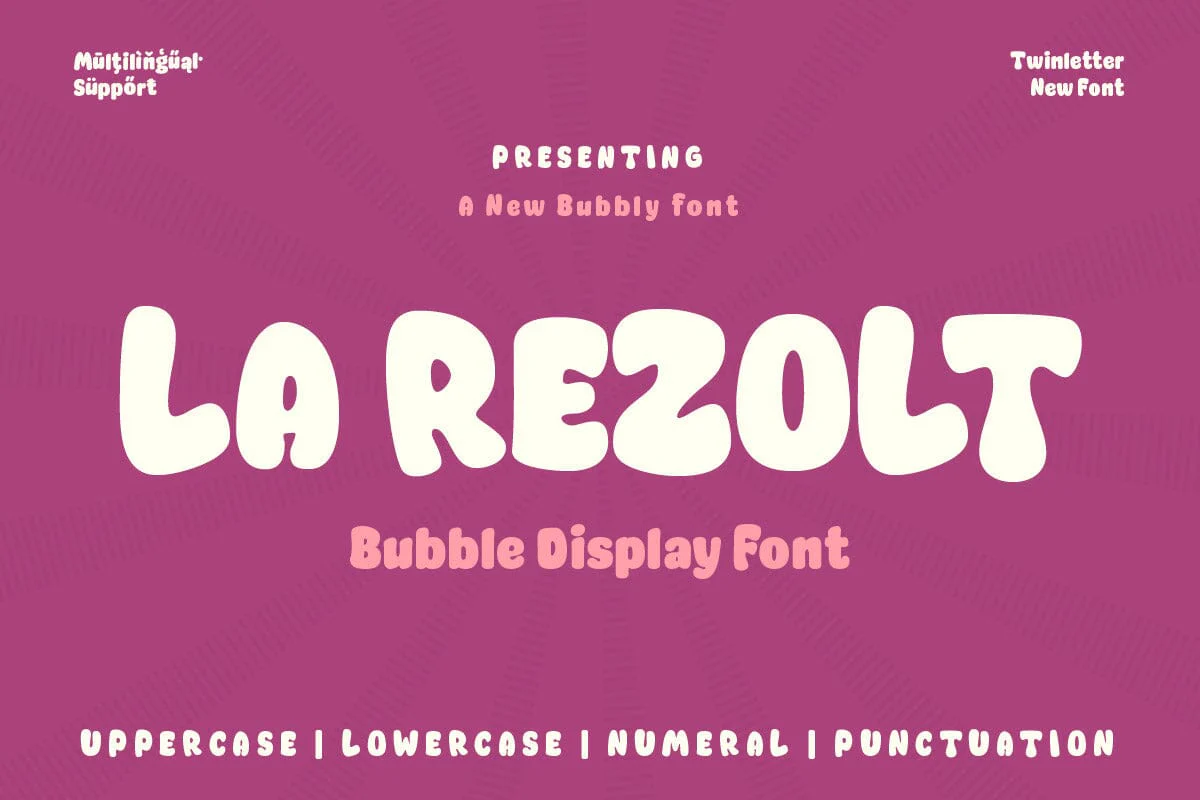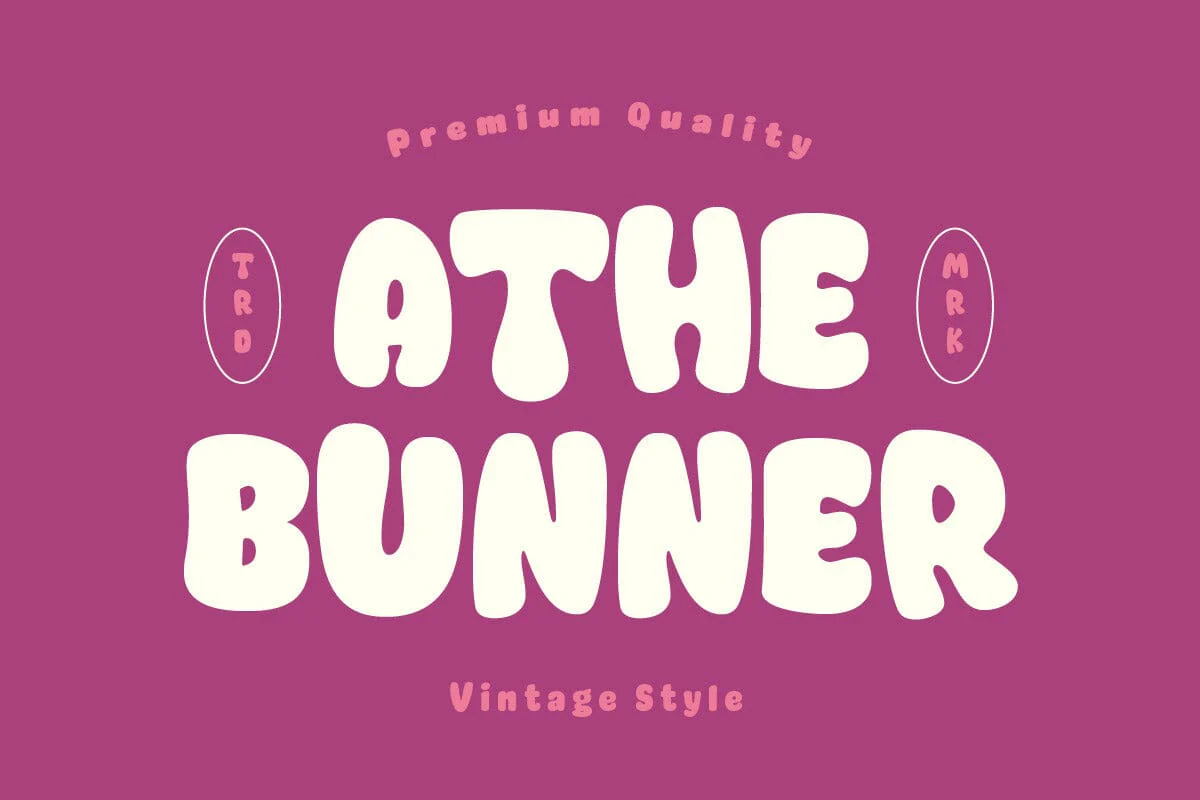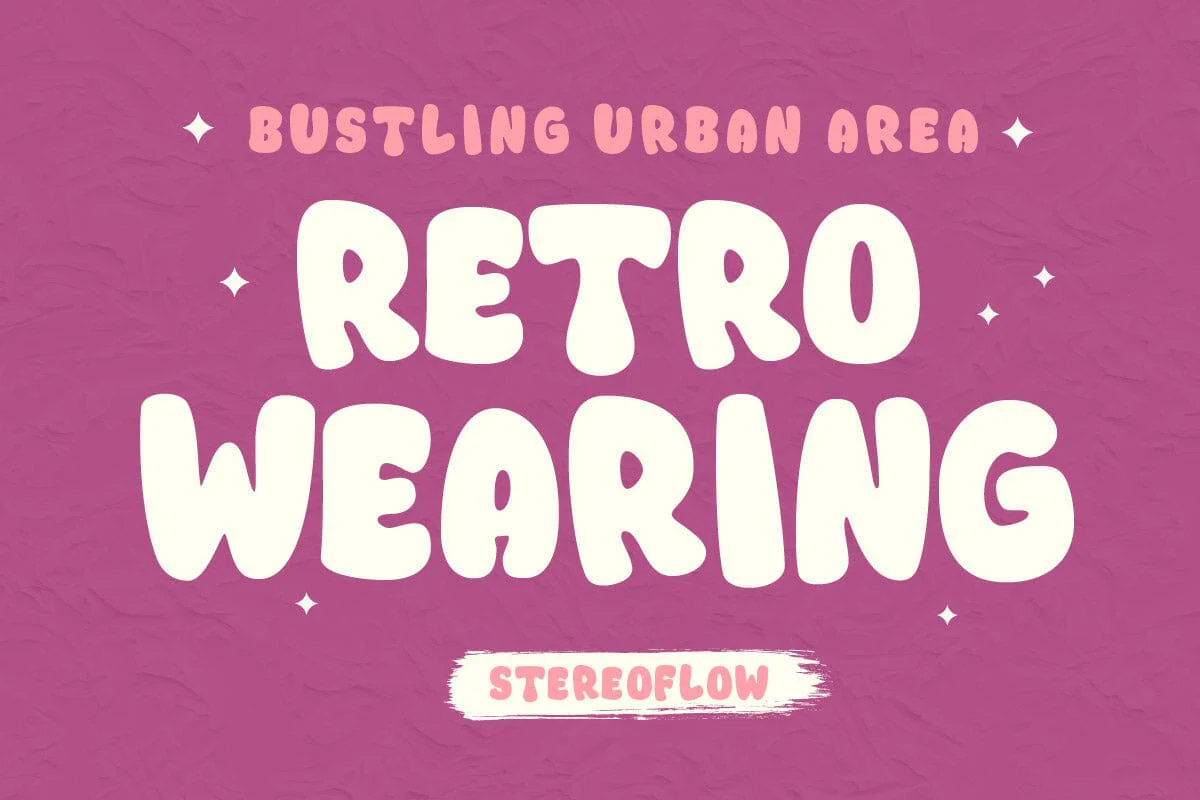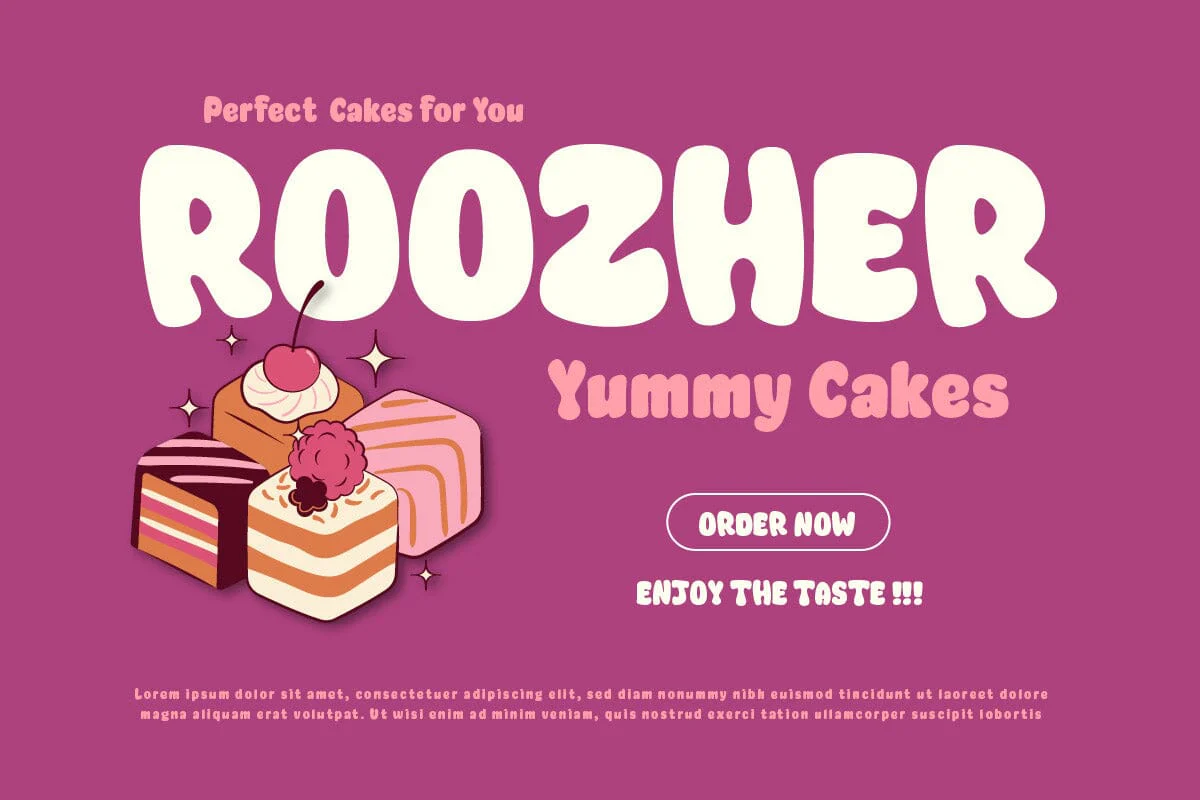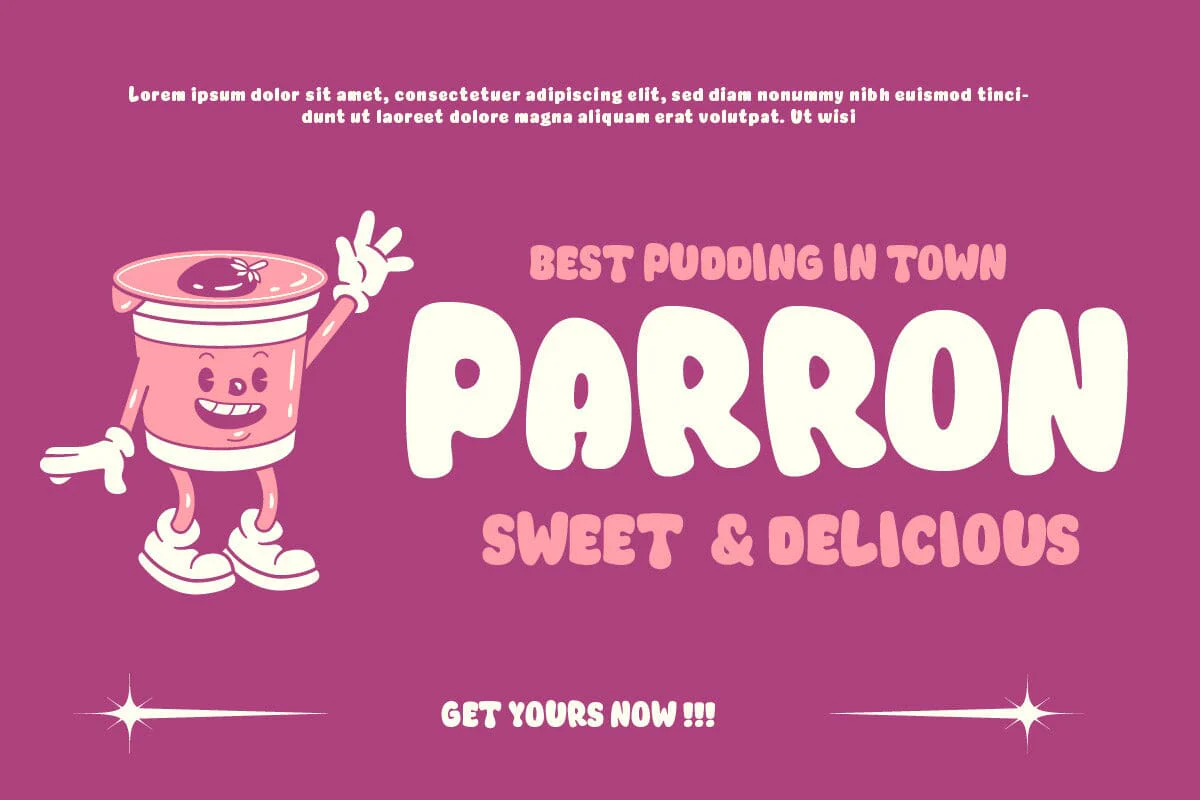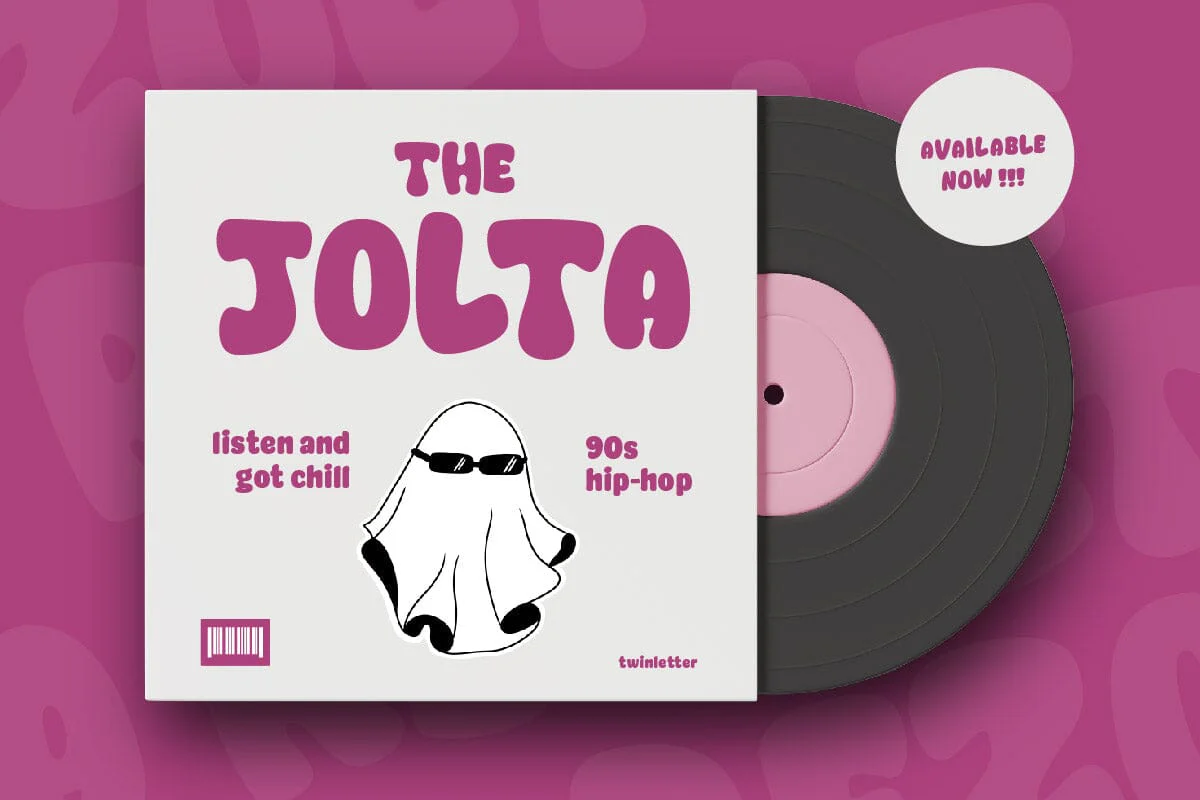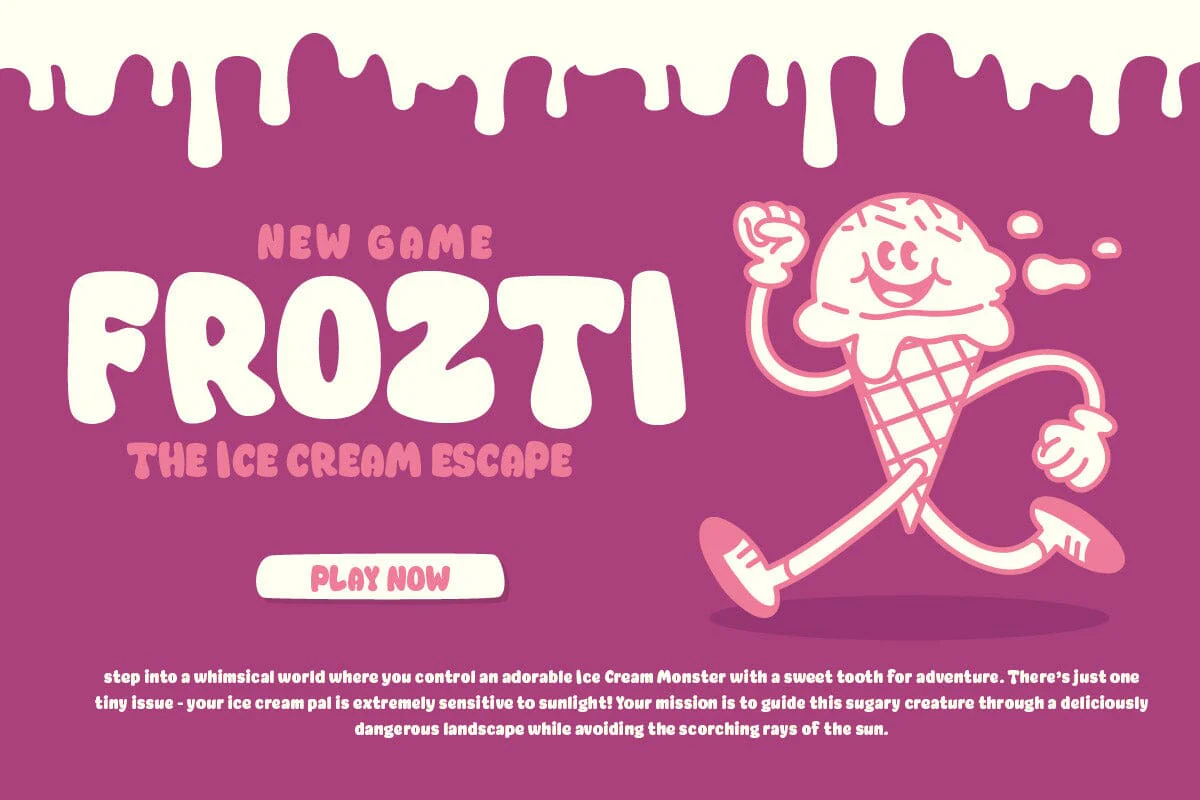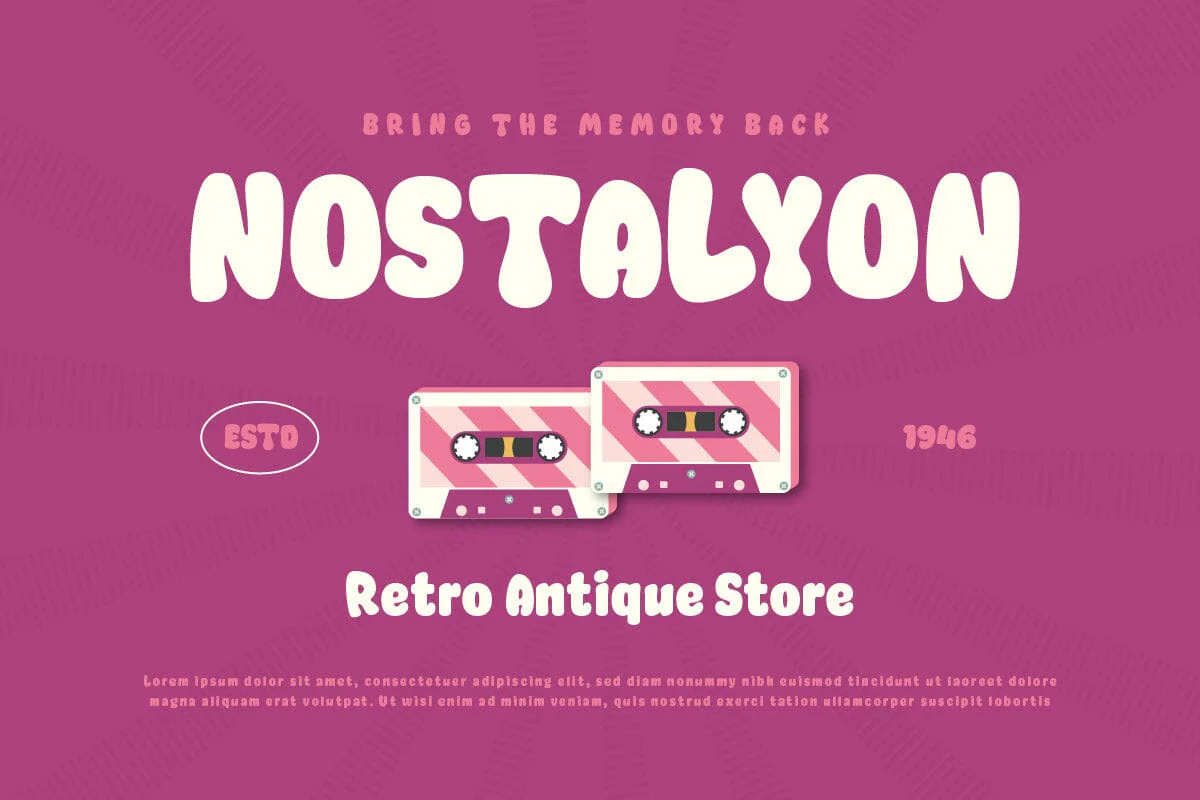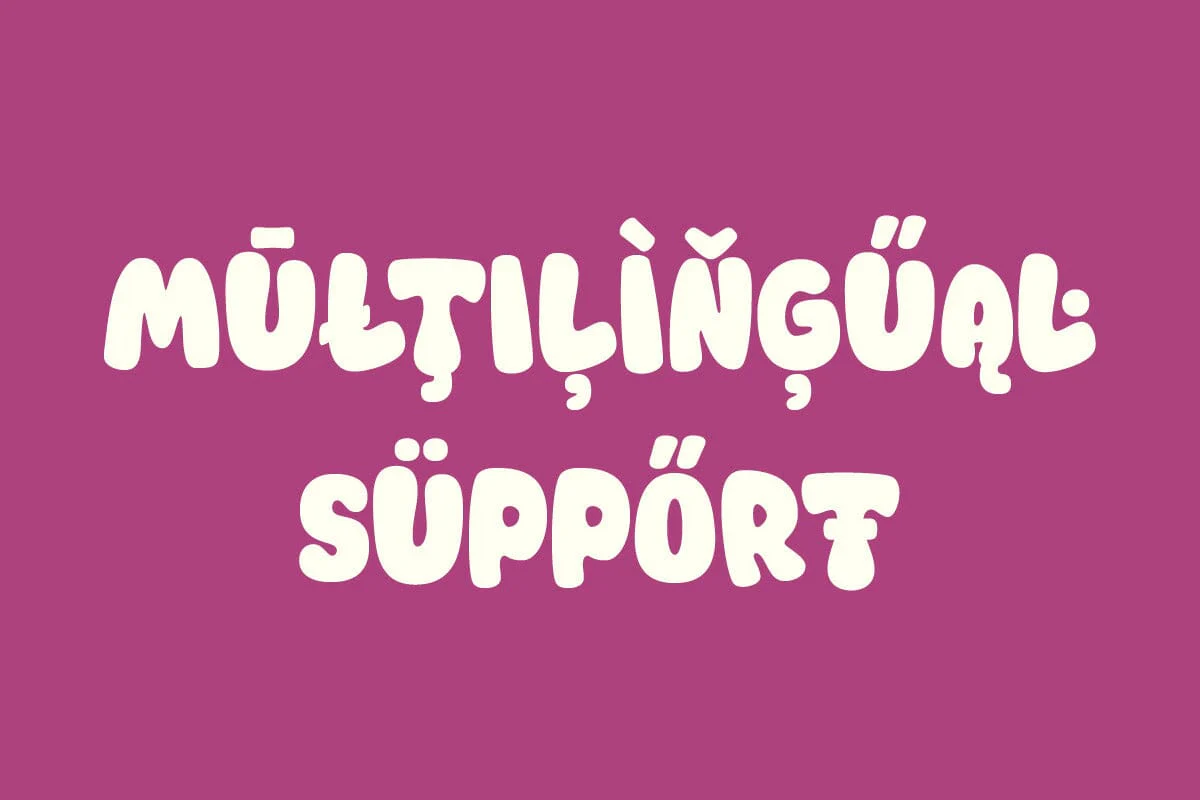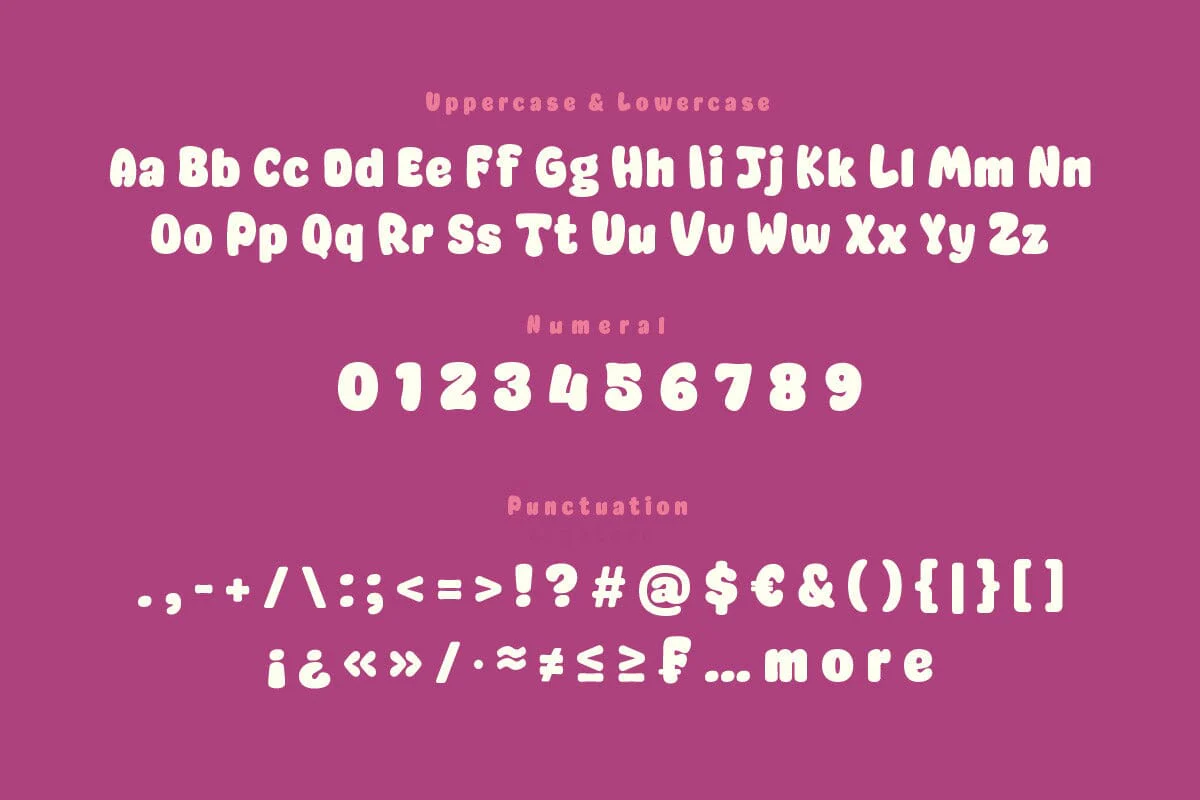
La Rezolt - Bubble Display Font
La Rezolt is a bubble display font that brings a touch of fun and whimsy to your designs. Its unique, playful characters are perfect for children’s books, party invitations, or any design project that calls for a fun and friendly feel. But La Rezolt is more than just a font, it’s a way to bring joy and laughter to your designs. With La Rezolt, your designs will not only look great, but also bring a smile to people’s faces. It’s like a splash of color on a blank canvas, bringing your designs to life with its vibrant energy and playful charm.